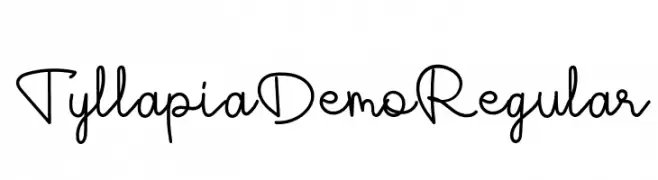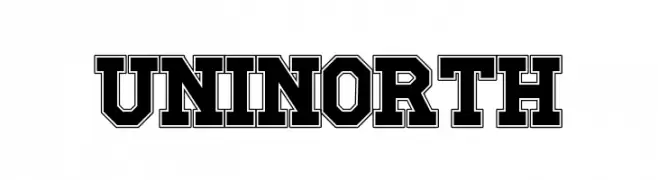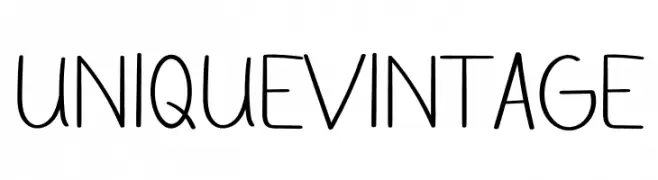
A playful, casual handwritten font with smooth, flowing script.
A playful and elegant font with cursive-like strokes and whimsical design.
An elegant script font with flowing, interconnected letters and graceful flourishes.
A modern, clean sans-serif font with uniform strokes and smooth curves.
A bold, angular font with sharp serifs and a dynamic appearance.
A bold, geometric font with sharp edges and a uniform thickness.
A bold, geometric font with sharp angles and a modern look.
Bold, blocky font with a three-dimensional outline, ideal for impactful designs.
A playful, handwritten-style font with a modern and clean appearance.
A playful, casual handwritten font with uneven strokes and a whimsical style.